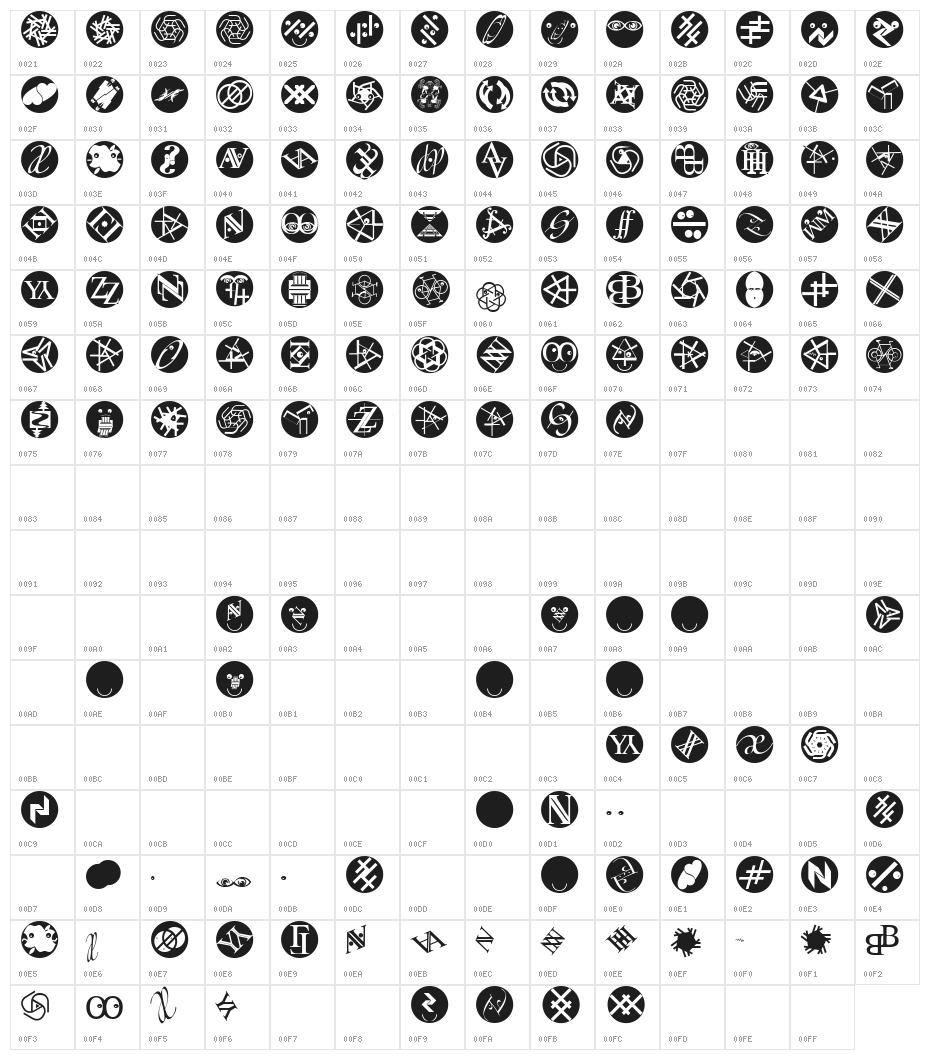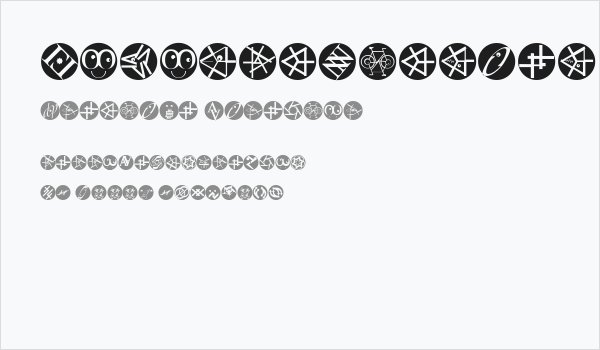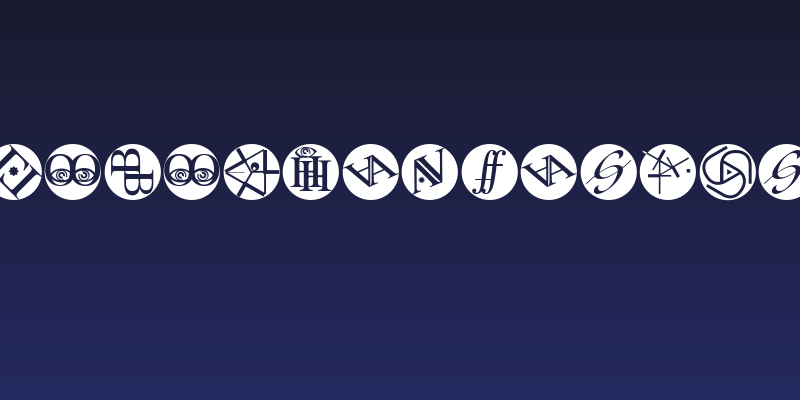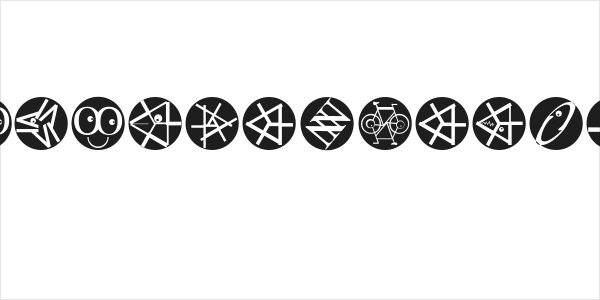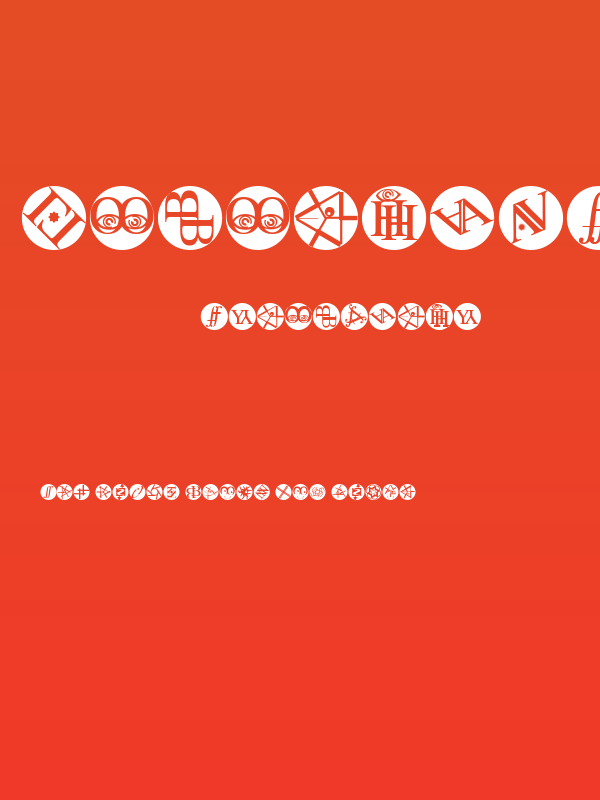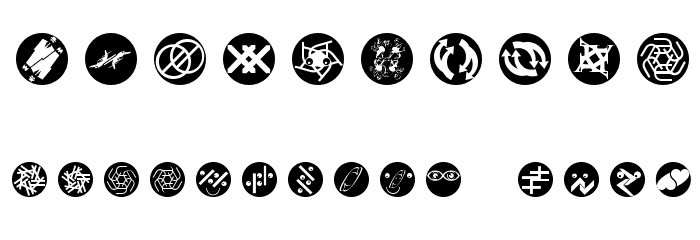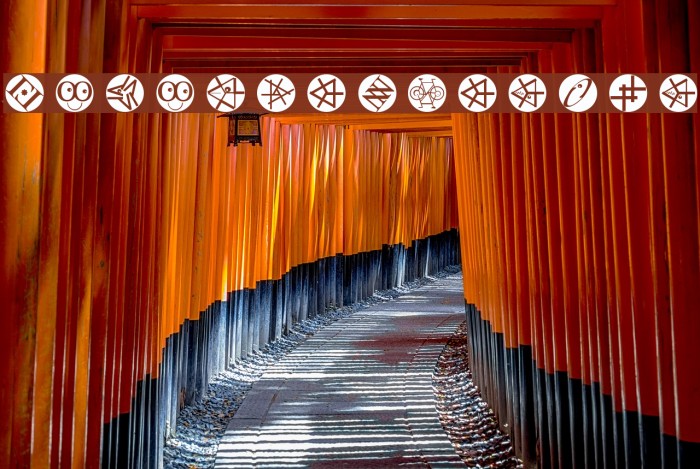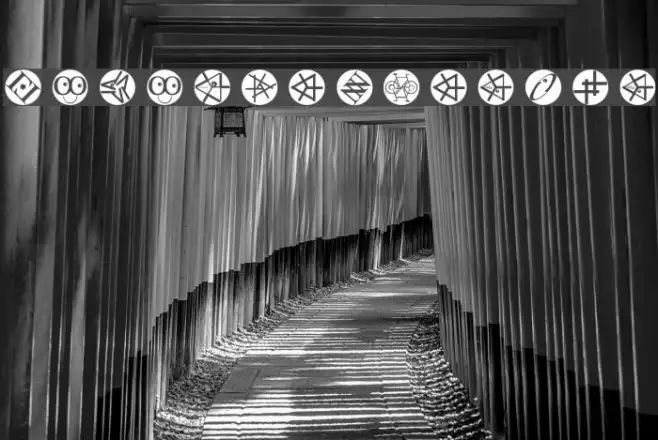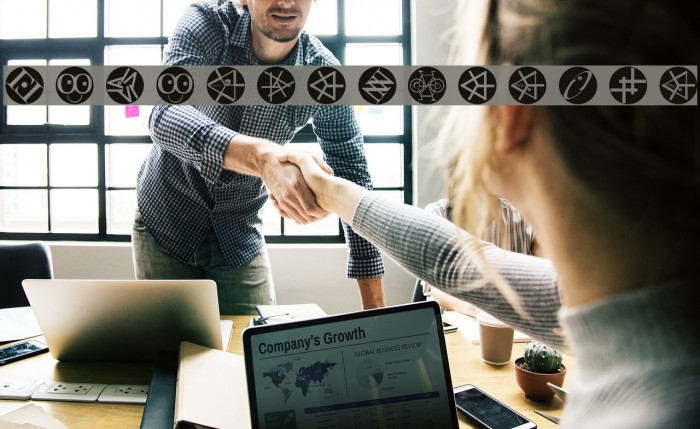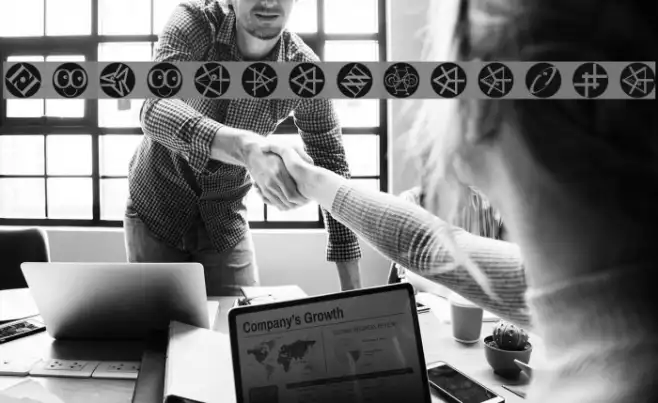
LogoPhantasies Font
LogoPhantasies Description
Highly decorative and abstract set of glyphs, each character enclosed in a black circle and composed of intricate, geometric, and sometimes surreal linework, merging letterforms with symbolic or pictorial elements.
| Overall Style | Decorative, Abstract, Modern |
| Use Case | Logos, Display, Artistic projects, Branding |
| Proposed Projects | Branding, creative logos, album covers, experimental posters, visual identity for art or tech projects. |